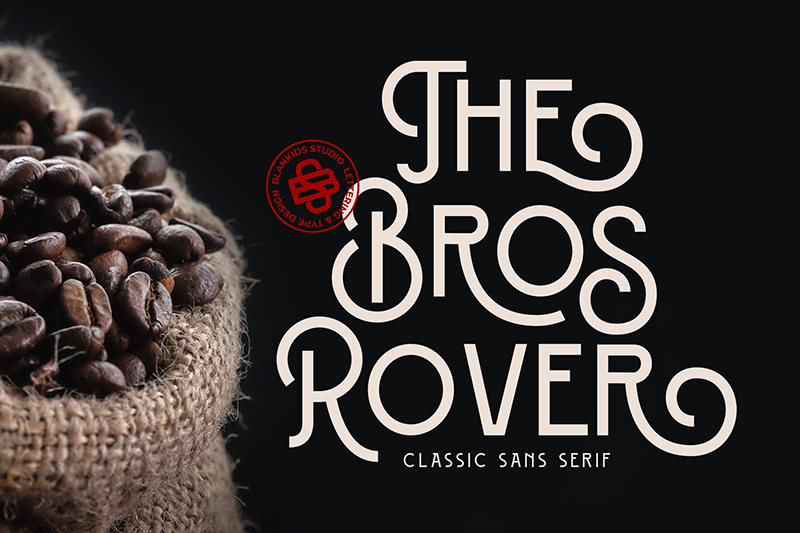
Bros Rover is a playful retro font perfect for adding a touch of nostalgia to your designs. Its unique character set makes it ideal for posters, logos, and creative projects that require a fun, vintage vibe.